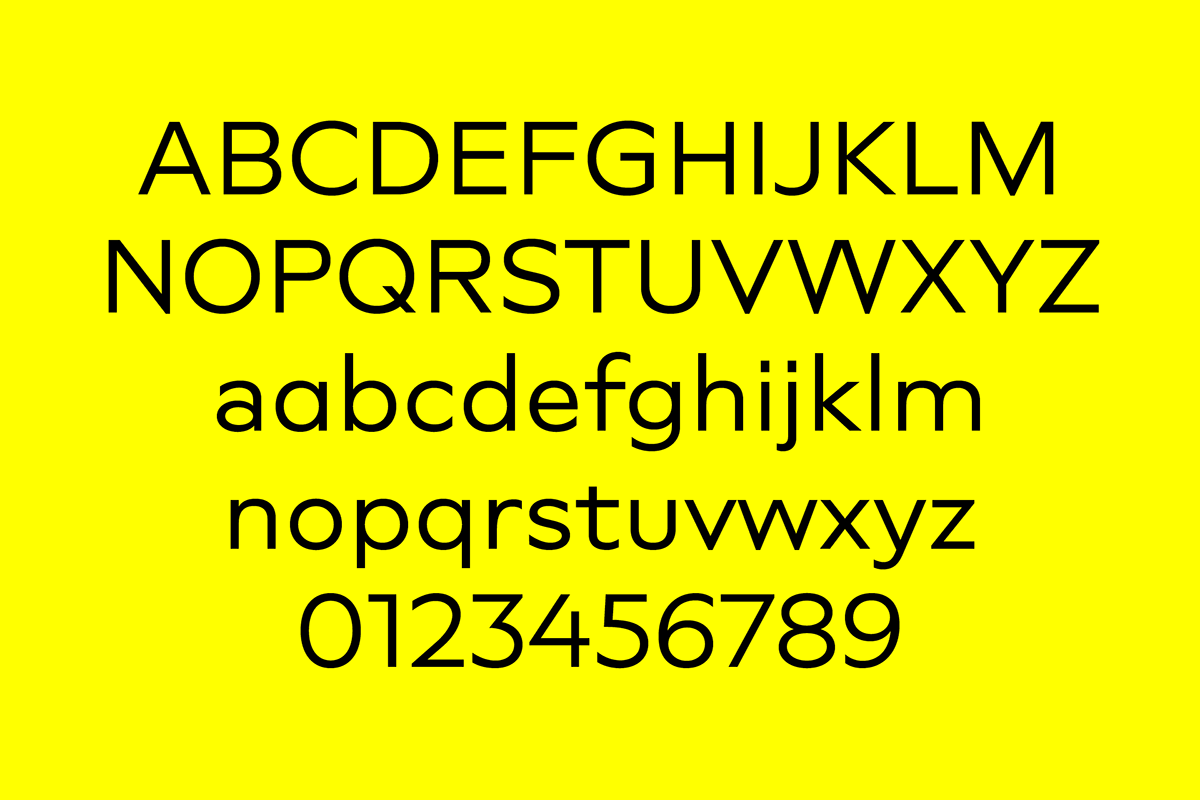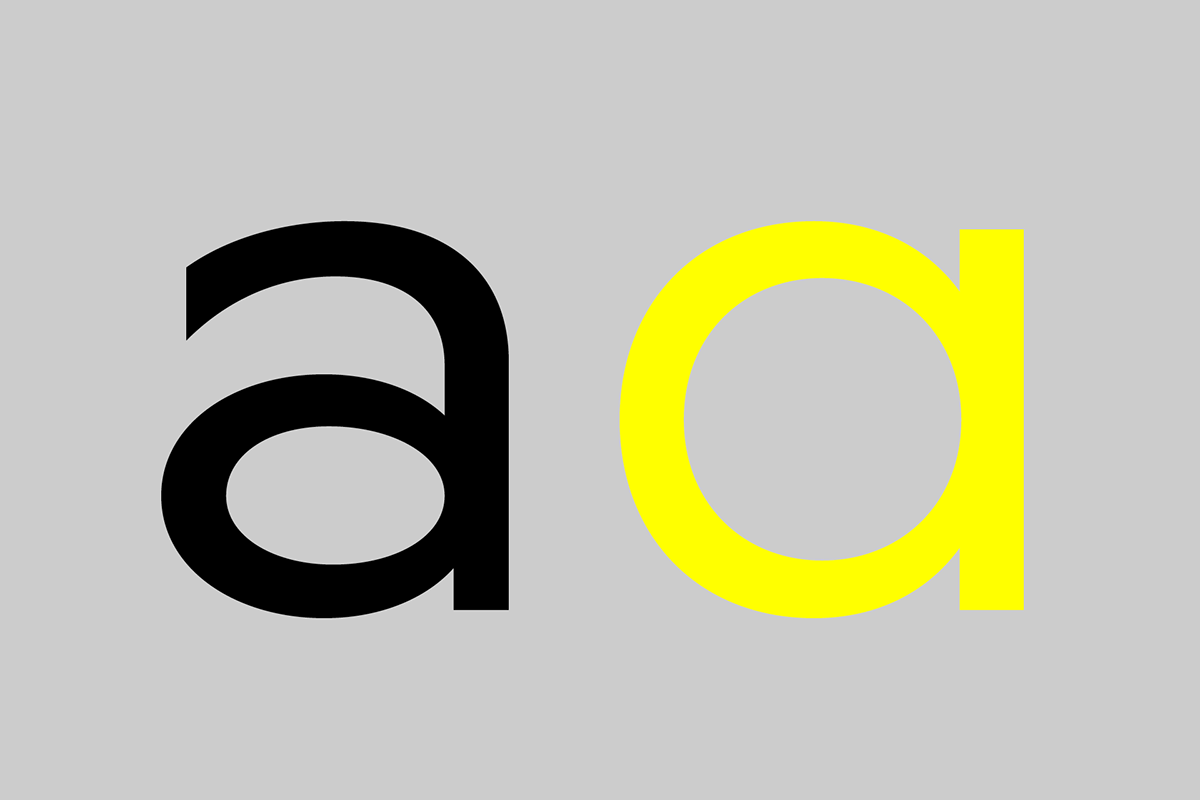
The Novera family is a sharp geometric sans in ten weights plus matching italics, available in two versions – Modern and Classic. It has a contemporary, approachable and multifunctional yet characteristic design, that comes with an extensive glyphs set of 1000+ glyphs per font, meeting all typographic demands.
Characteristics
Vertical terminals, circular shapes and angular apexes – Novera truely breathes geometry! But the concept goes beyond the application of rational geometry. The intension was to create a highly legible family suitable for every day usage inspired by the work of Paul Renner, Eric Gill or Jakob Erbar, combining the geometric with the human and the functional with the unconventional.
Alternates
To maintain neutrality and a modern appearance, the standard character set largely dispenses with idiosyncratic forms. This is in contrast to the alternative forms with the Gill-like lowercase letters g and t as well as a traditional shape of S and the German ligature t/z, which traces back to old German spellings. Also inspired by German poster designs from the early 20th century are the elongated i-dots and dieresis-dots that can create eye-catchers in headlines or logos.
Languages
Bonjour, gracias, dank je wel. It’s all there.
Plus more than 190 other languages.
Opentype Features
The family comes with many opentype features to support modern typesetting. This includes ligatures, different number sets or alternative shapes for texts set in all caps.
Arrows and Symbols
If you like arrows and other shapes, you will love Novera! The family has a built-in extensive symbols-set including 48 different arrows and various geometric shapes or icons.
Modern vs Classic
Novera is available in two versions, both with the same original source file but different characters set as default. This includes among other features the double-storey a (Novera Modern) which is optimized for legibility in longer text paragraphs, or ascenders ending at the cap height (Novera Classic) for a helvetica-flavored look.
Weights
With its 40 styles and 1000+ glyphs per font, the Novera family covers all thinkable design scenarios from branding to web, app or editorial usage. It blends in perfectly in text heavy paragraphs with its mid-weights like Light, Regular, Medium or Bold or stands out like a monument in headlines and posters with its extreme weights like Black and Ultra or Thin and ExtraLight.
Usage
Novera Modern was intended for usage in body copy, whereas Novera Classic was planned for headlines, short paragraphs or logos, but both versions can be used vice versa too, of course.